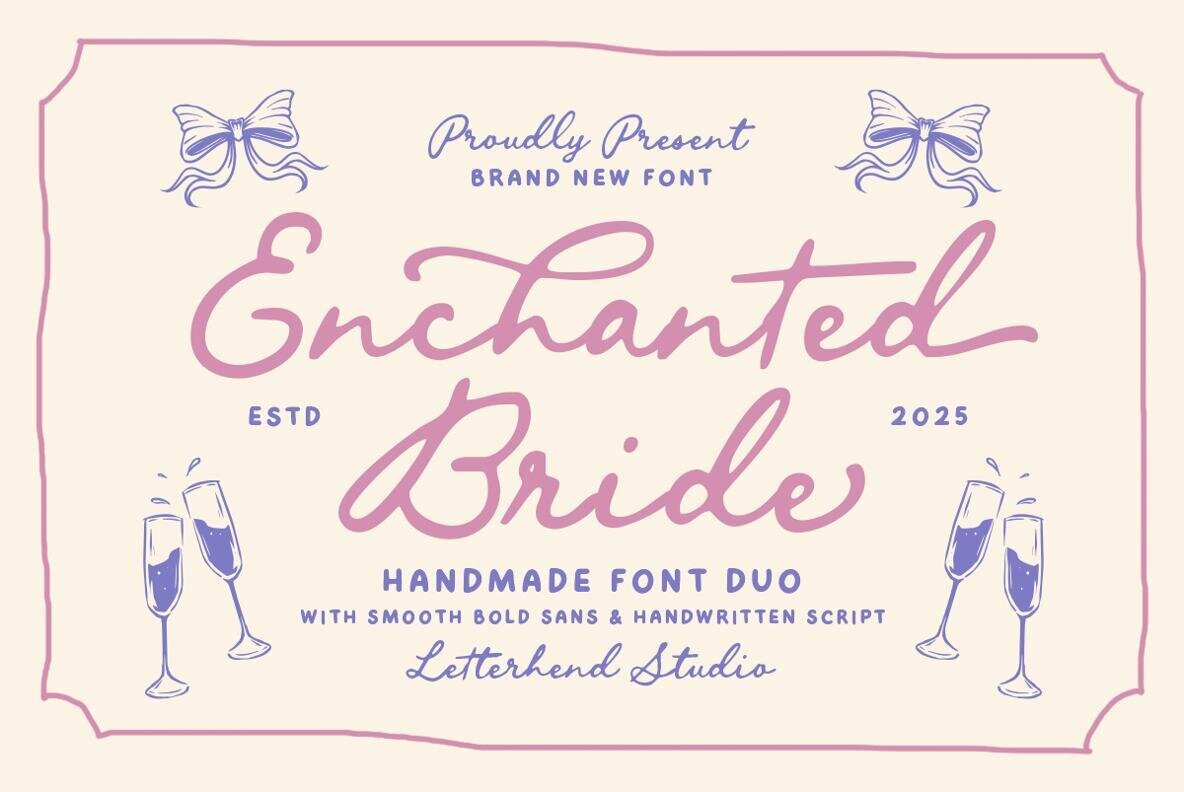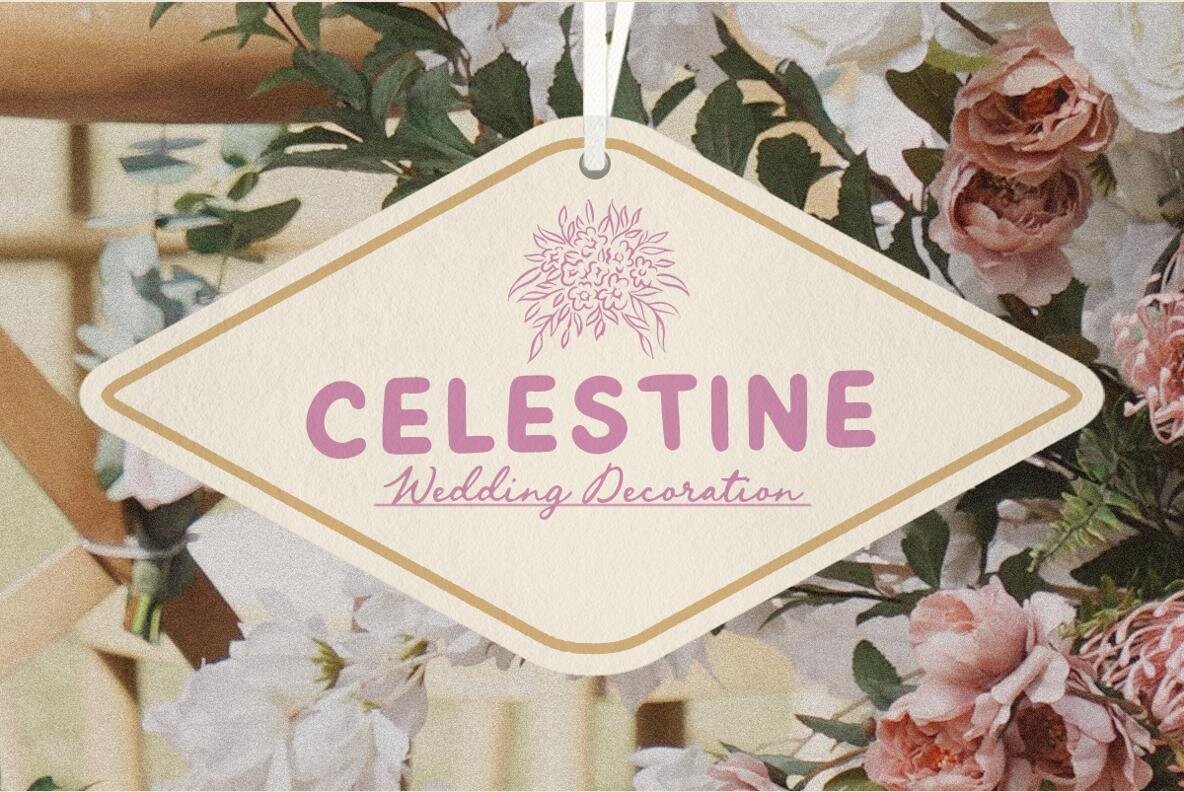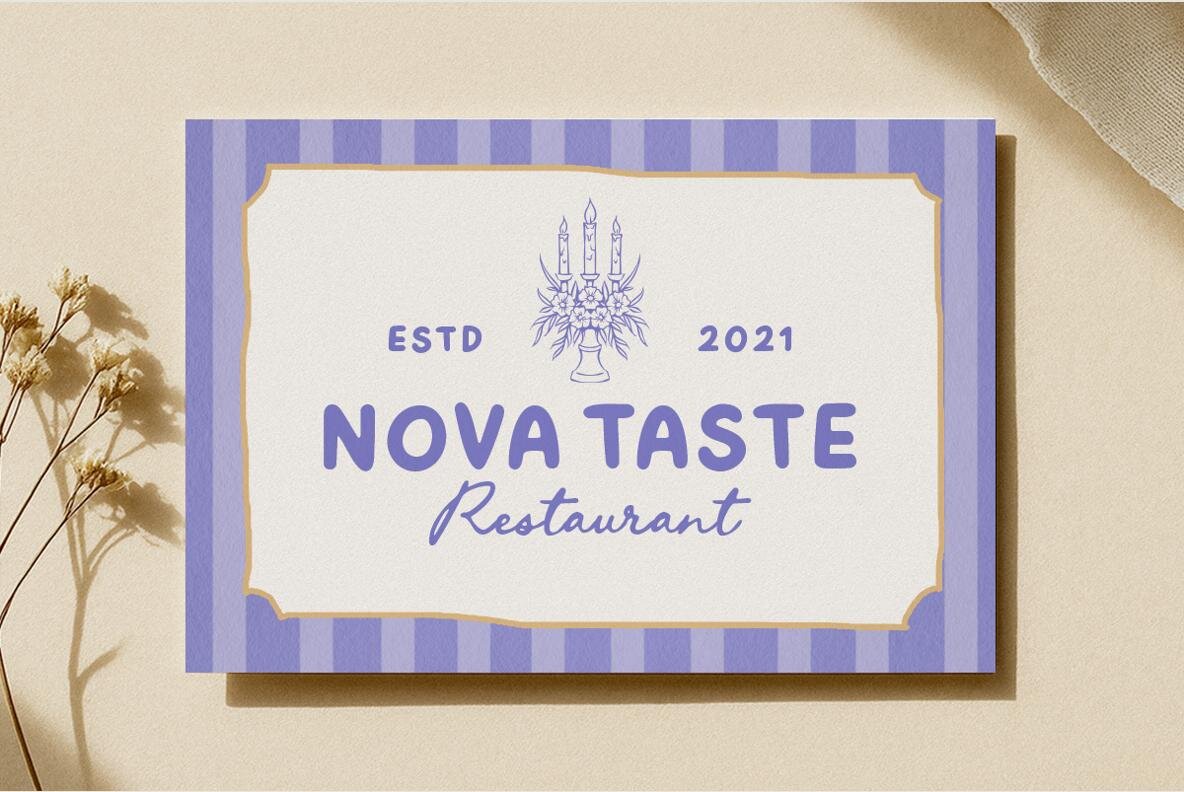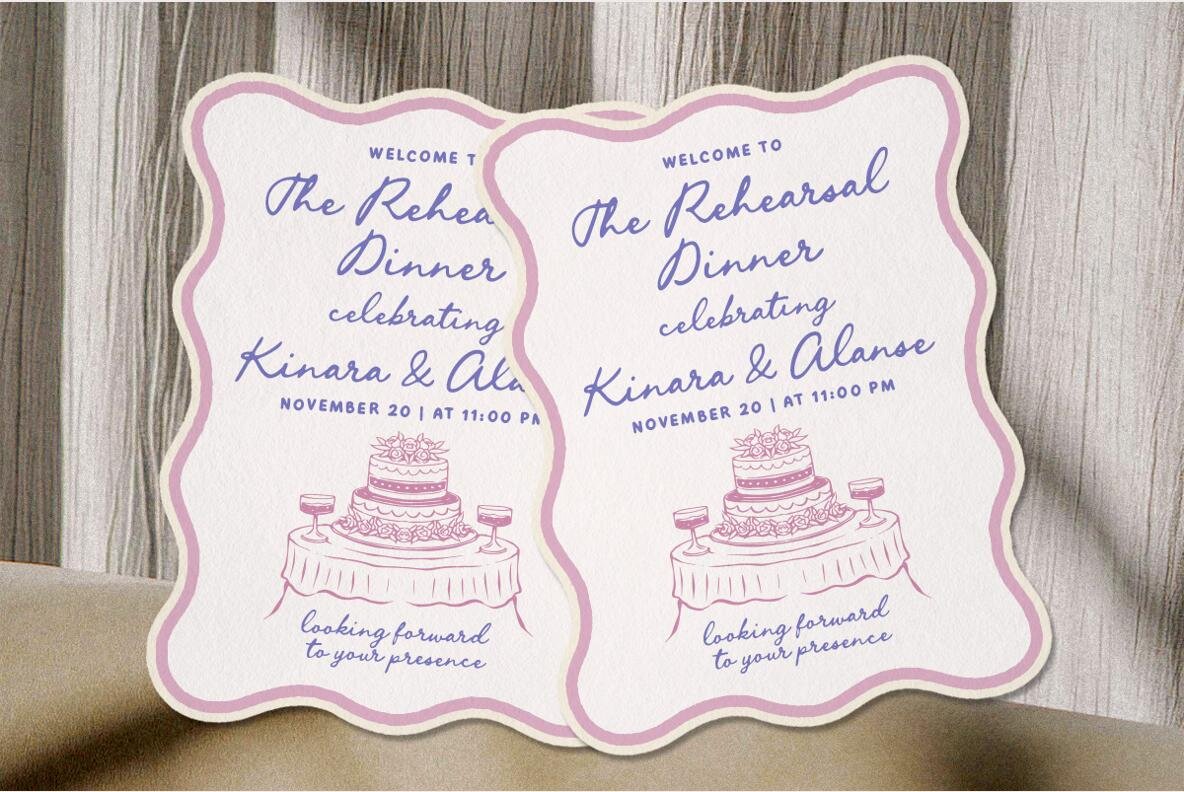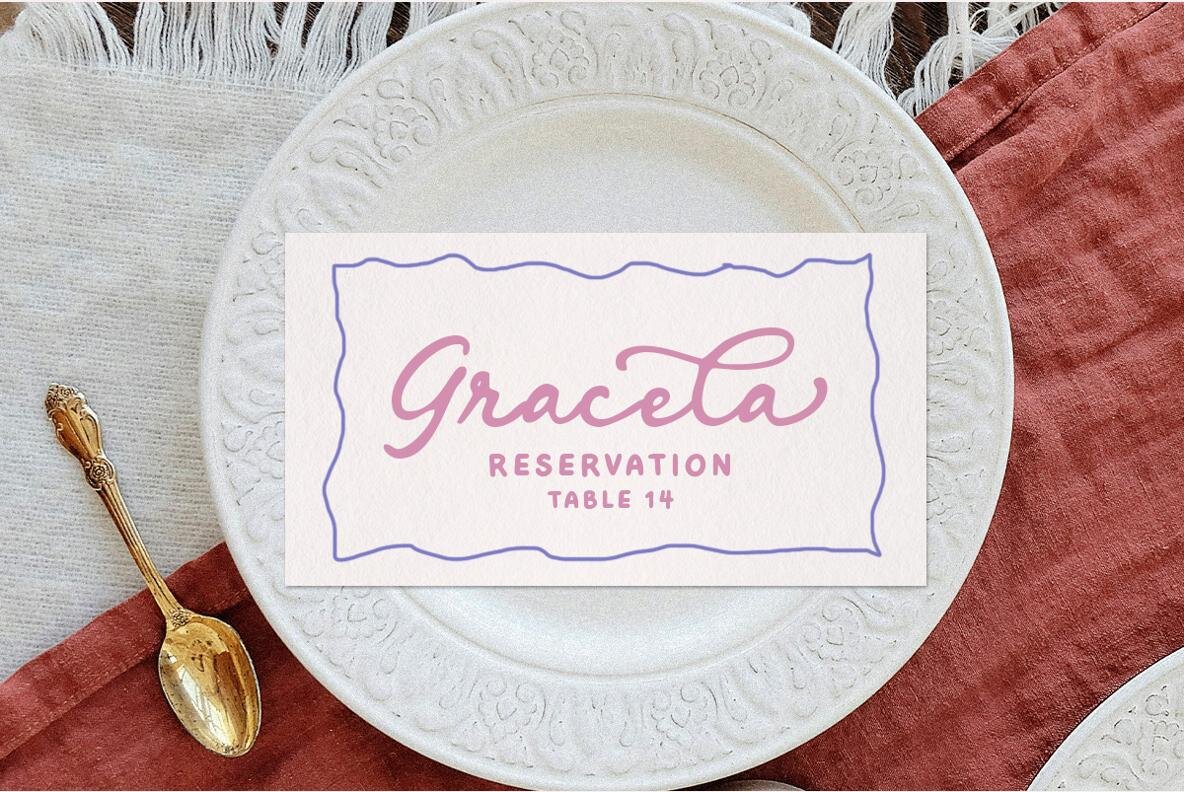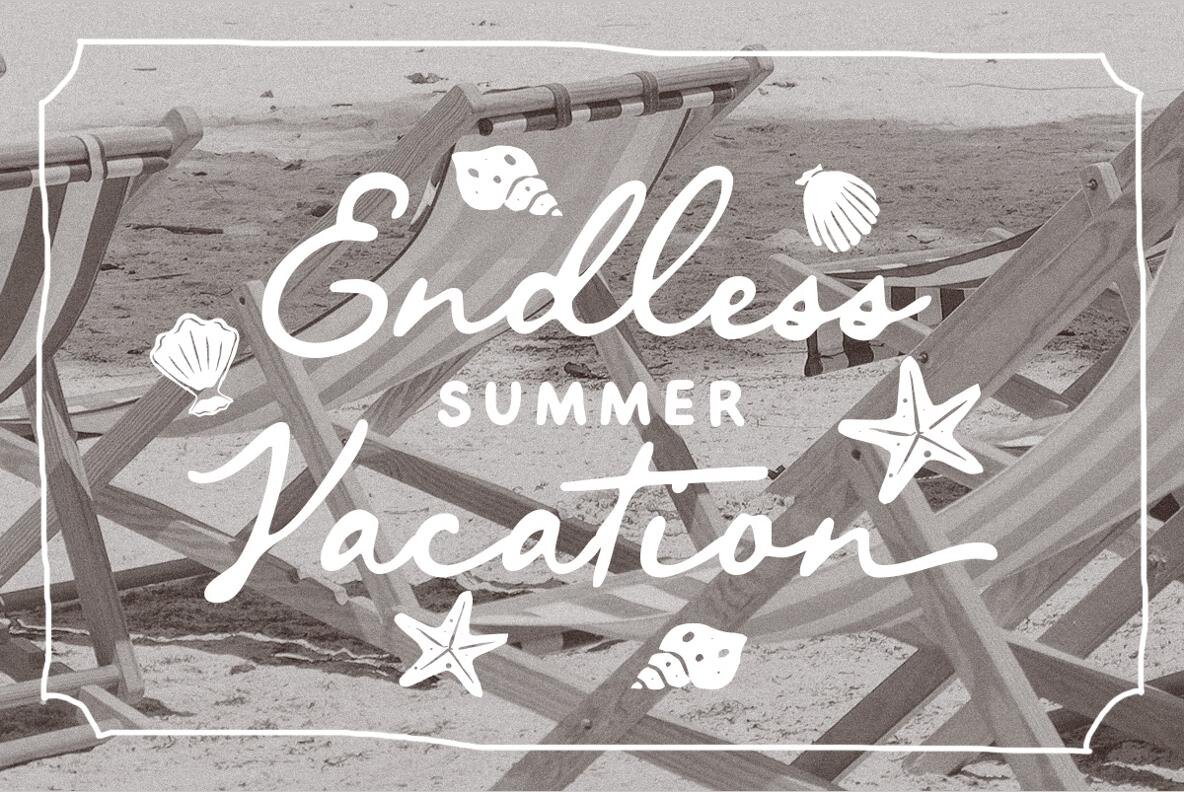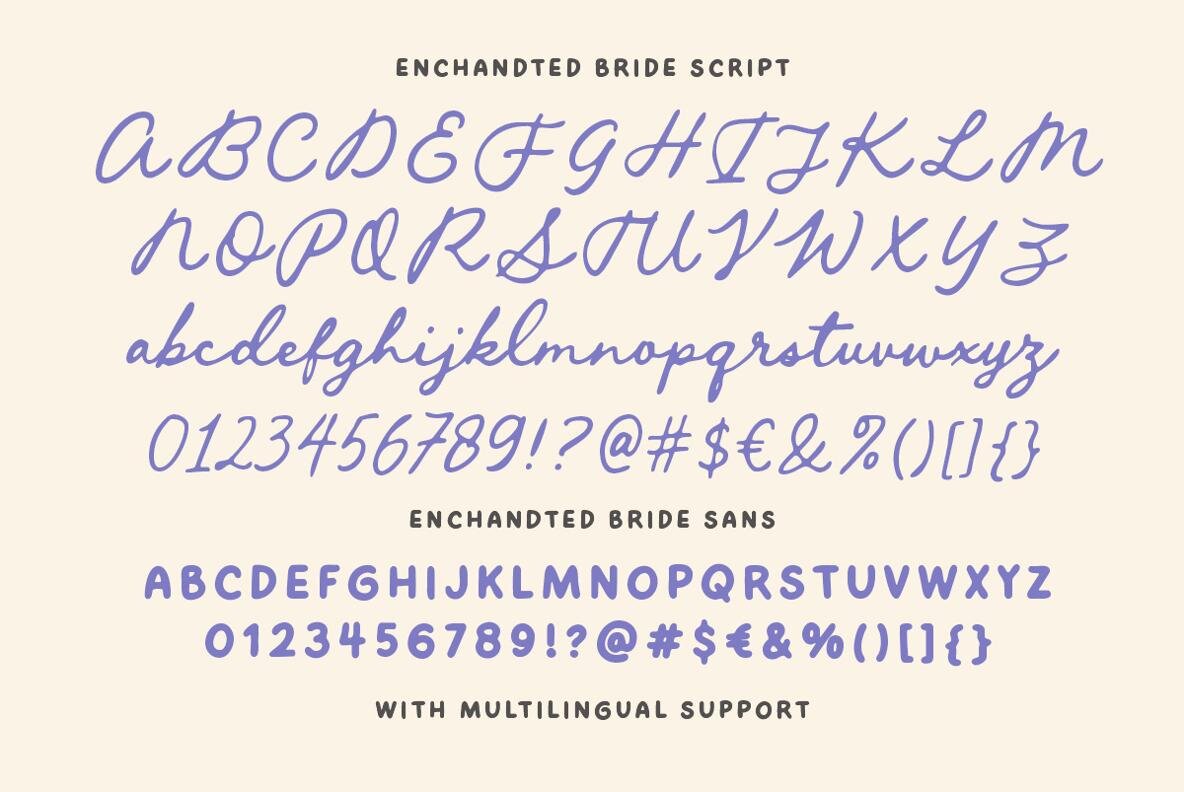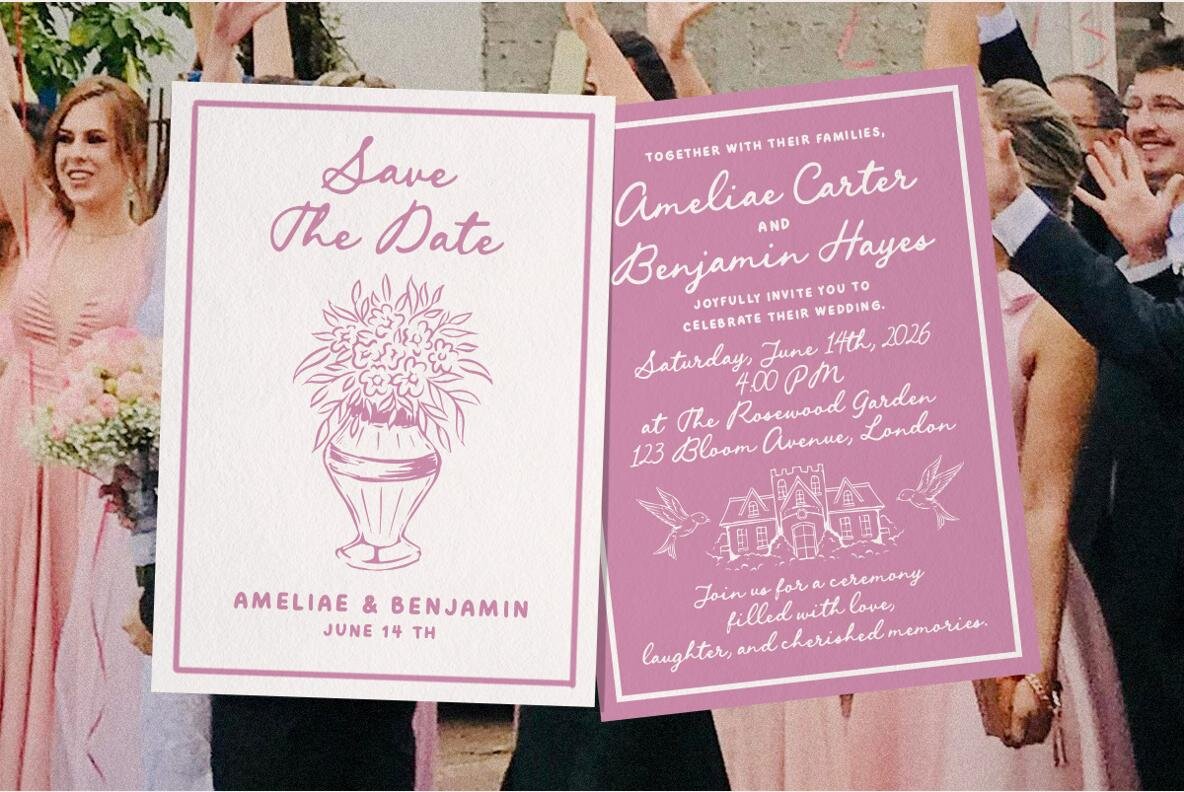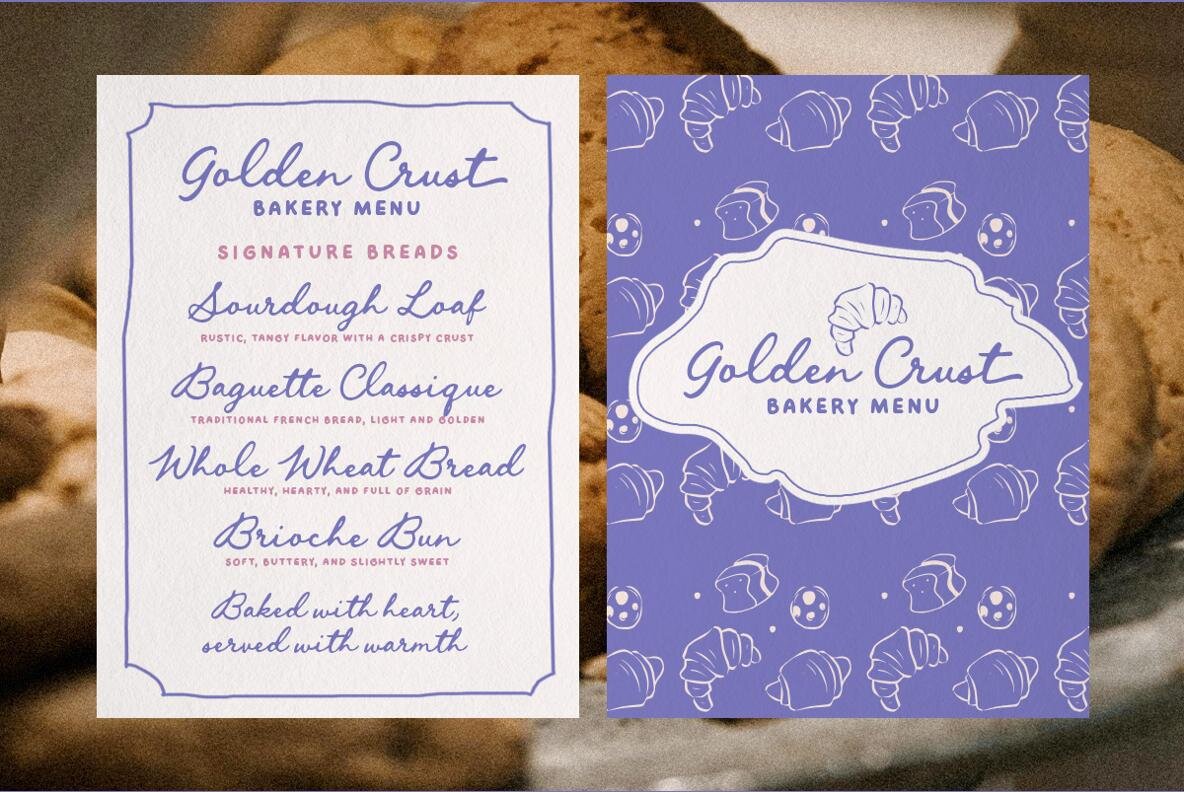
Enchanted Bride Font
Enchanted Bride presents a delightful pairing of a smooth bold sans serif and an elegant handwritten script, creating a blend of sophistication and warmth. Its graceful curves and soft strokes evoke a sense of romance and timelessness, ideal for projects such as invitations, branding, and stationery that celebrate love and beauty. Each element harmonizes perfectly to impart an elegant and modern charm that resonates with heartfelt intention. Features:Enchanted Bride: A Romantic Font Duo